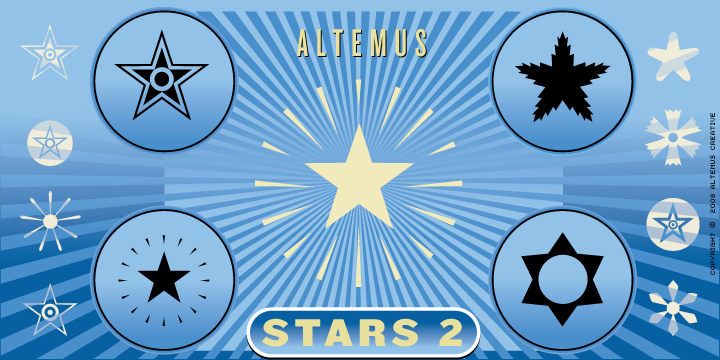
This font contains 174 characters; a variety of five pointed outline stars with centers, star designs composed from various gemetric shapes with from three to eight points, jagged stars, quilt stars, outline stars, starfish, arrow stars, burst stars, dropshadow stars, ragged starbursts, double stars and airforce stars.
Altemus Stars Two